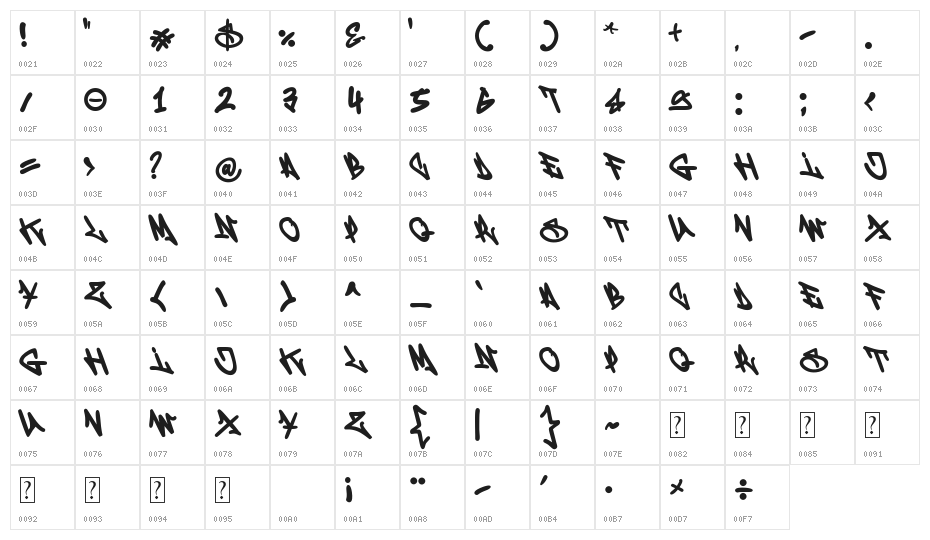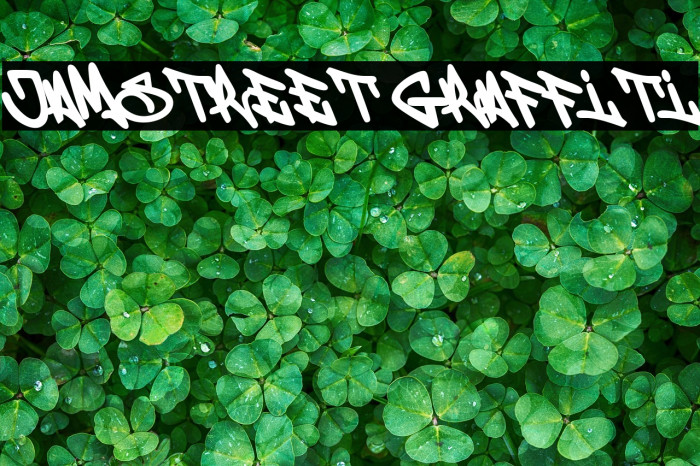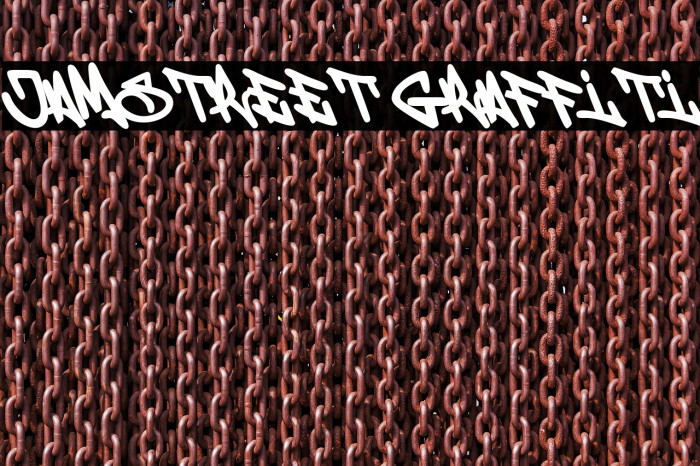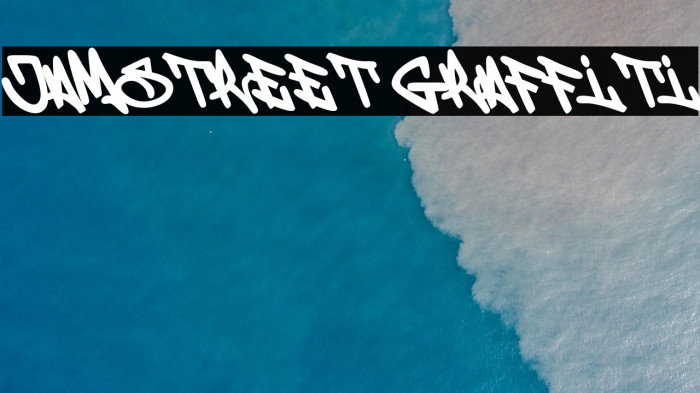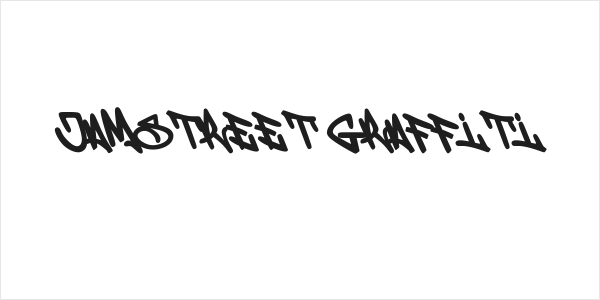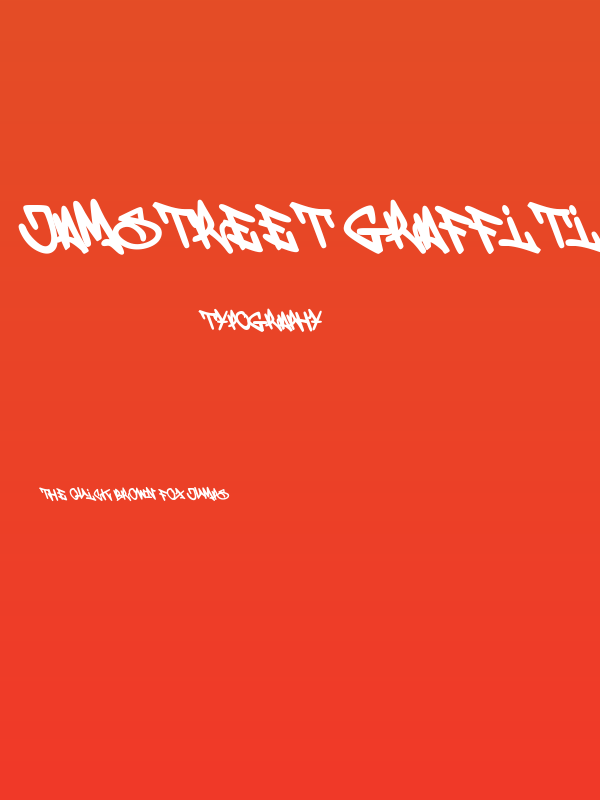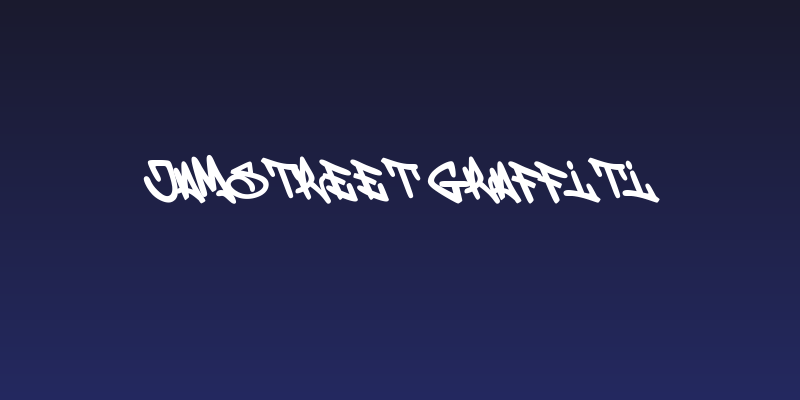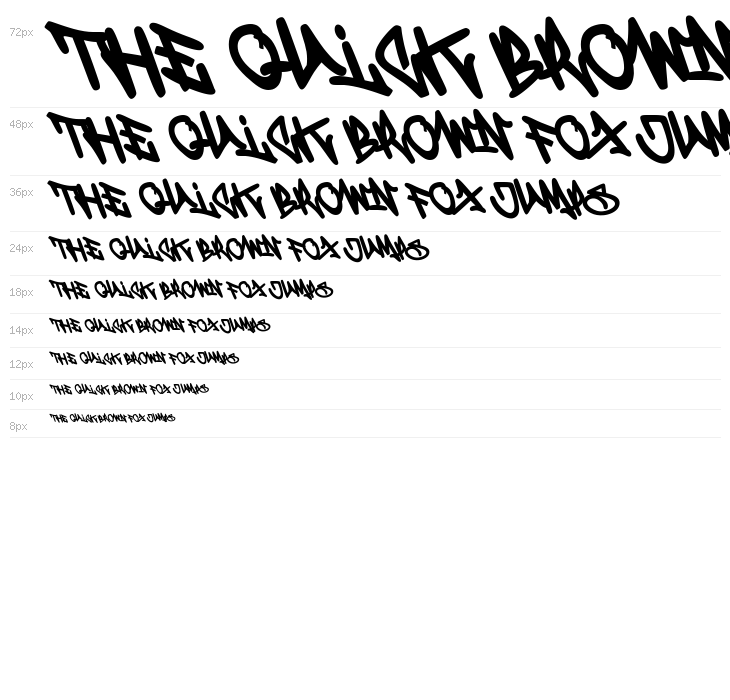
Jamstreet Graffiti Font
Jamstreet Graffiti Description
This font embodies the raw, energetic essence of street art with its bold, graffiti-inspired design. Each character is crafted with dynamic strokes that mimic the spontaneous and expressive nature of urban graffiti. The letters are angular and slightly slanted, giving them a sense of movement and urgency. The font features a mix of sharp edges and rounded curves, creating a visually striking contrast. Its unique style is perfect for projects that aim to capture the rebellious and vibrant spirit of street culture.
| Overall Style | Urban, Energetic, Rebellious |
| Proposed Projects | Ideal for urban-themed designs, streetwear branding, music album covers, and event posters. |